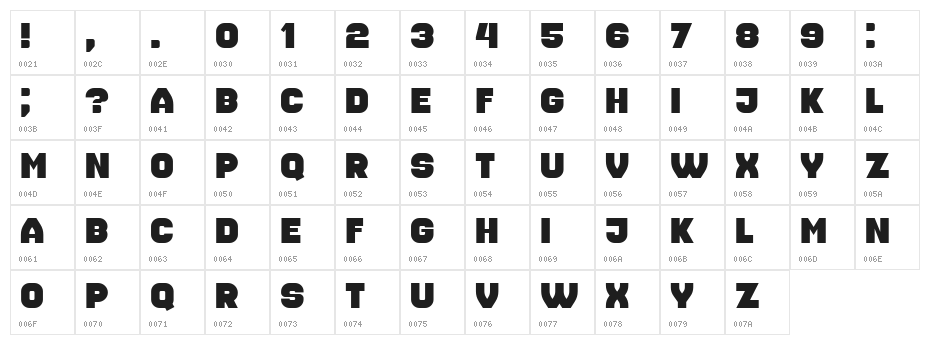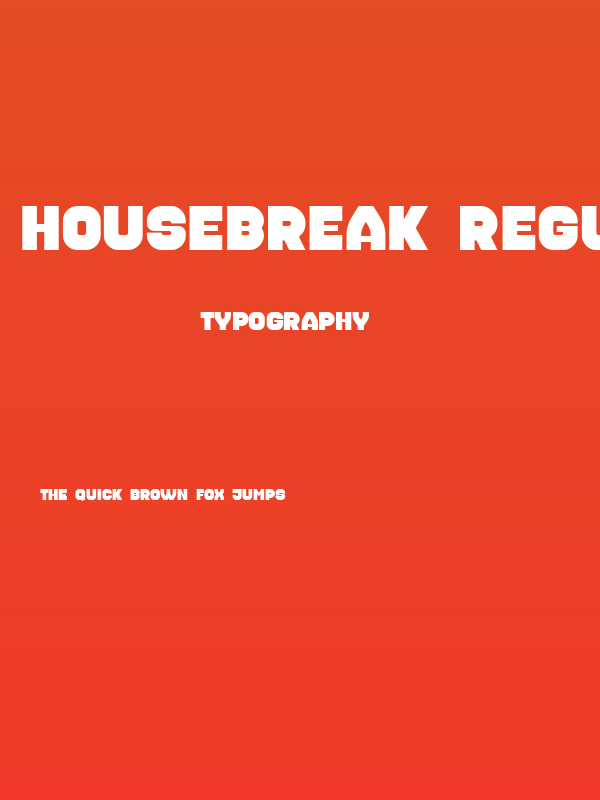
Housebreak Regular Font
Housebreak Regular Description
This font exhibits a bold and robust design, characterized by thick, blocky letterforms that convey strength and impact. The uppercase letters are uniform in height, with a slight angularity that adds a modern touch. The numerals are equally bold, maintaining the strong presence of the typeface. The overall style is geometric, with a consistent stroke width that enhances its readability and visual appeal. The font is ideal for making a statement, suitable for headlines or branding where a powerful and confident look is desired.
Proposed ProjectsPerfect for branding, posters, headlines, and any design requiring a strong, modern aesthetic.